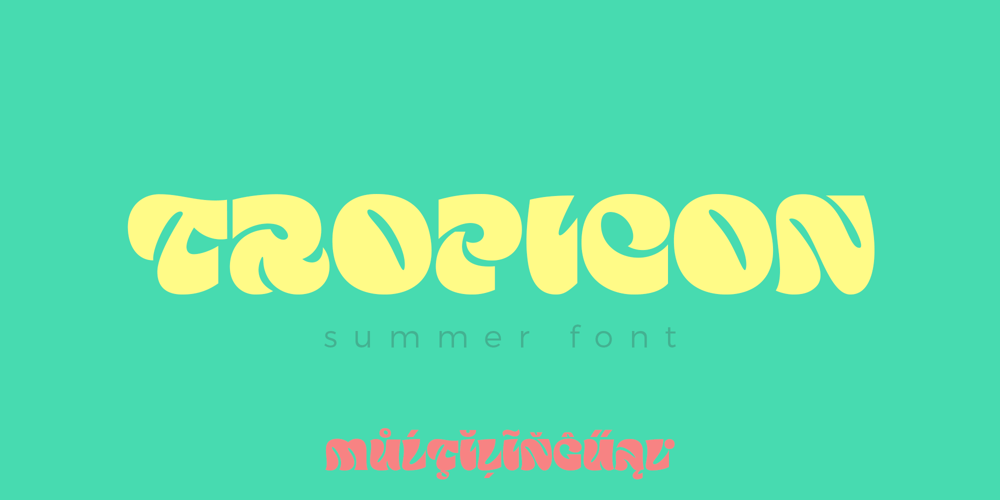
Tropicon Font Family was designed by Dmytro Poliakh and published by Sentavio. Tropicon contains 1 styles and family package options. Tropicon is a summer tropical fun bold display font, fresh & modern style. Summer Diary Font suitable for logo, branding, greeting card, poster and any design that you create.